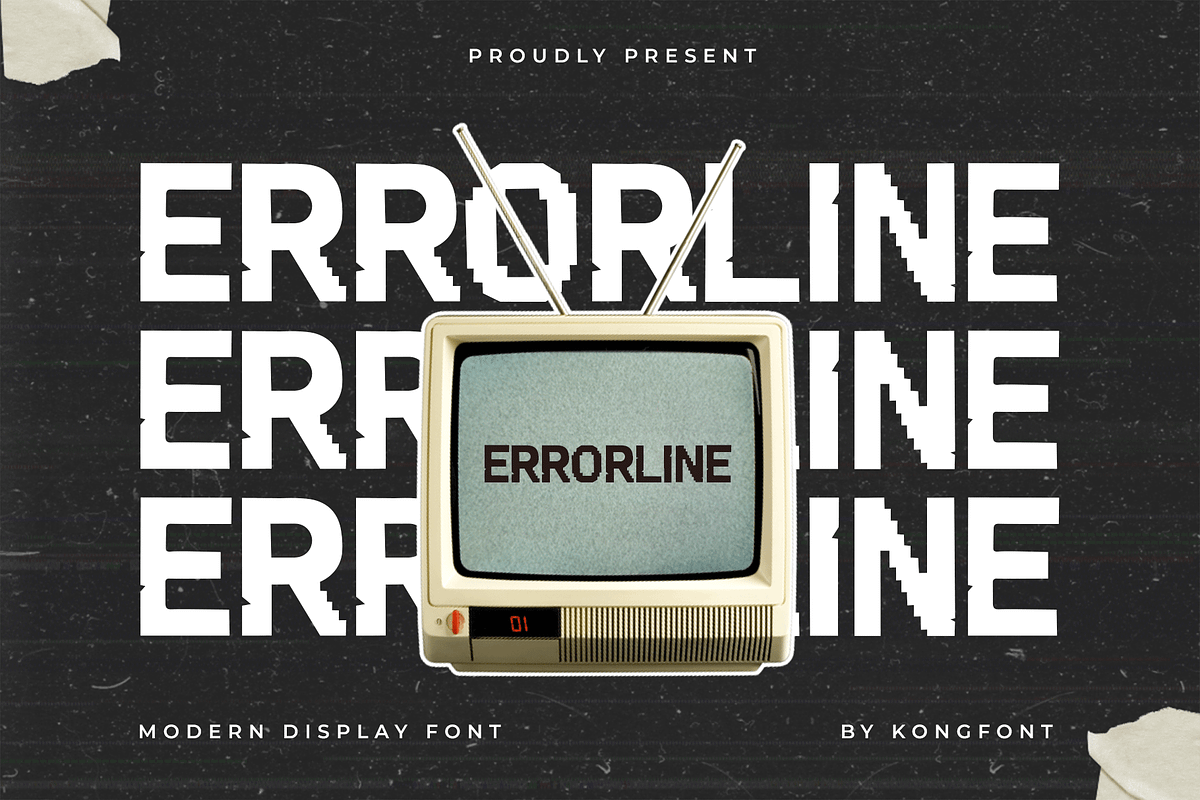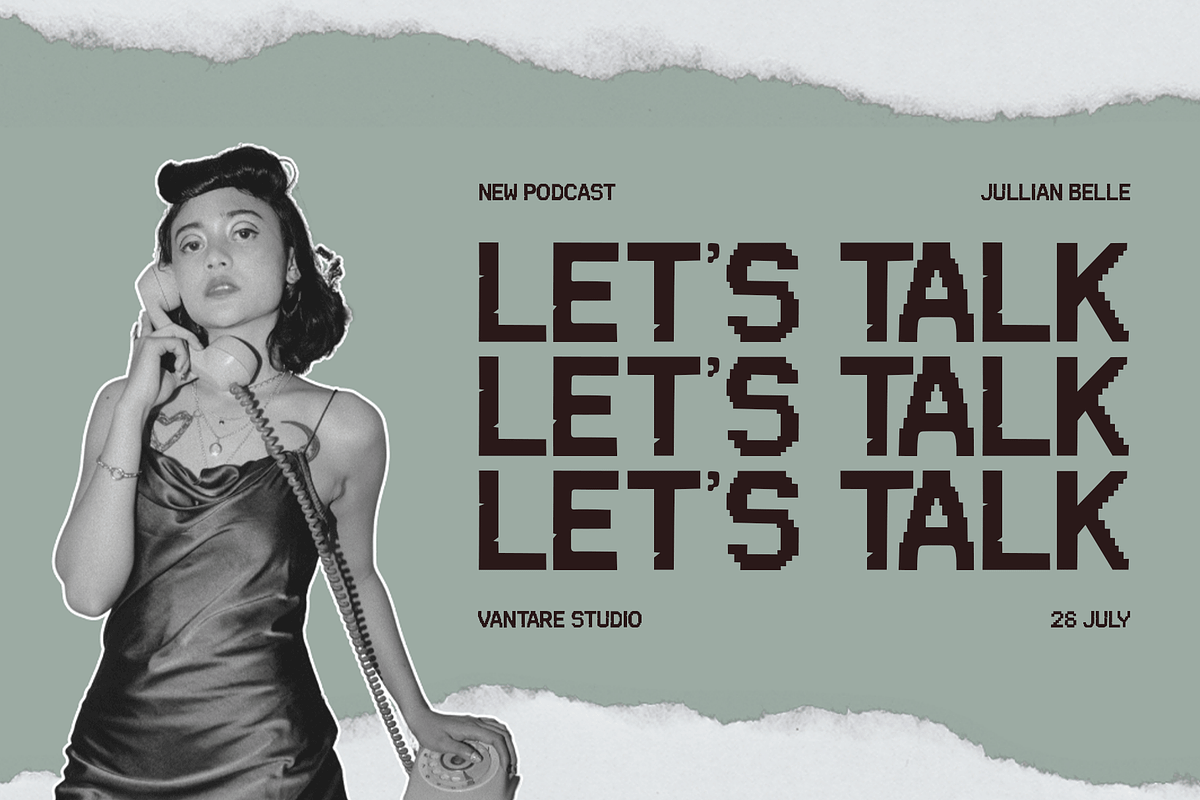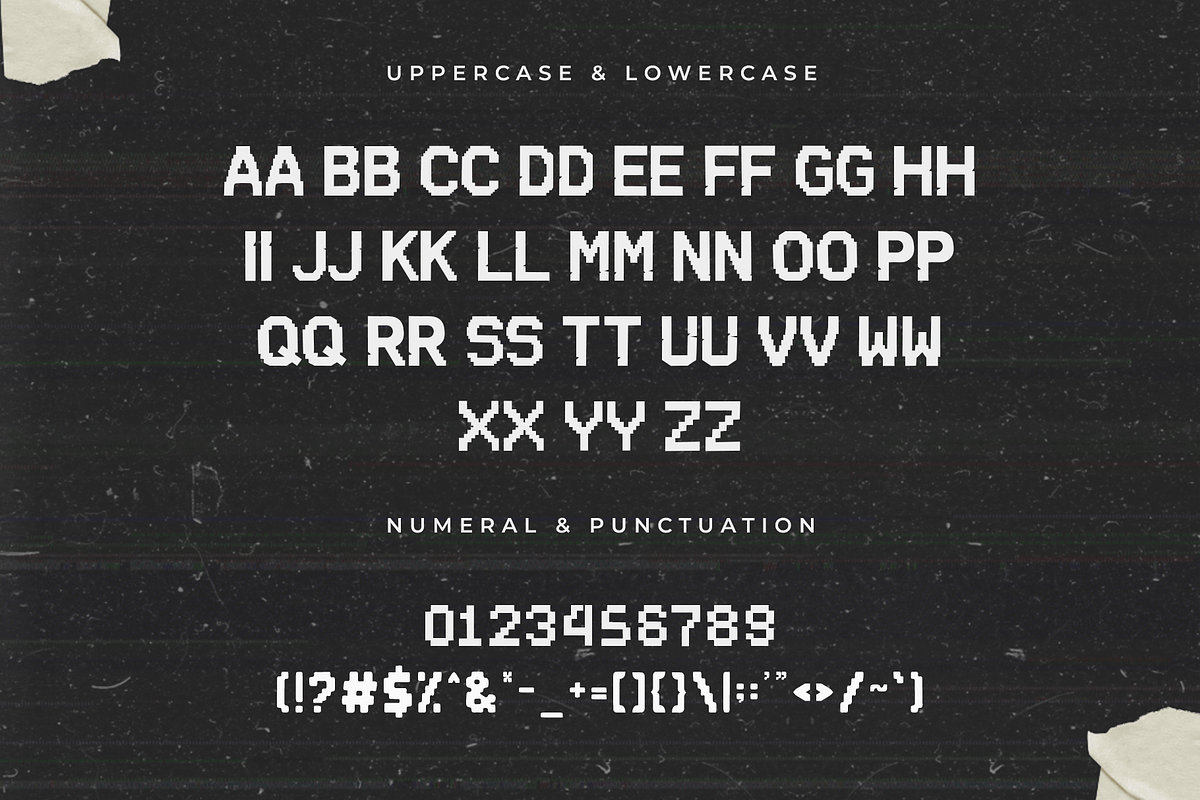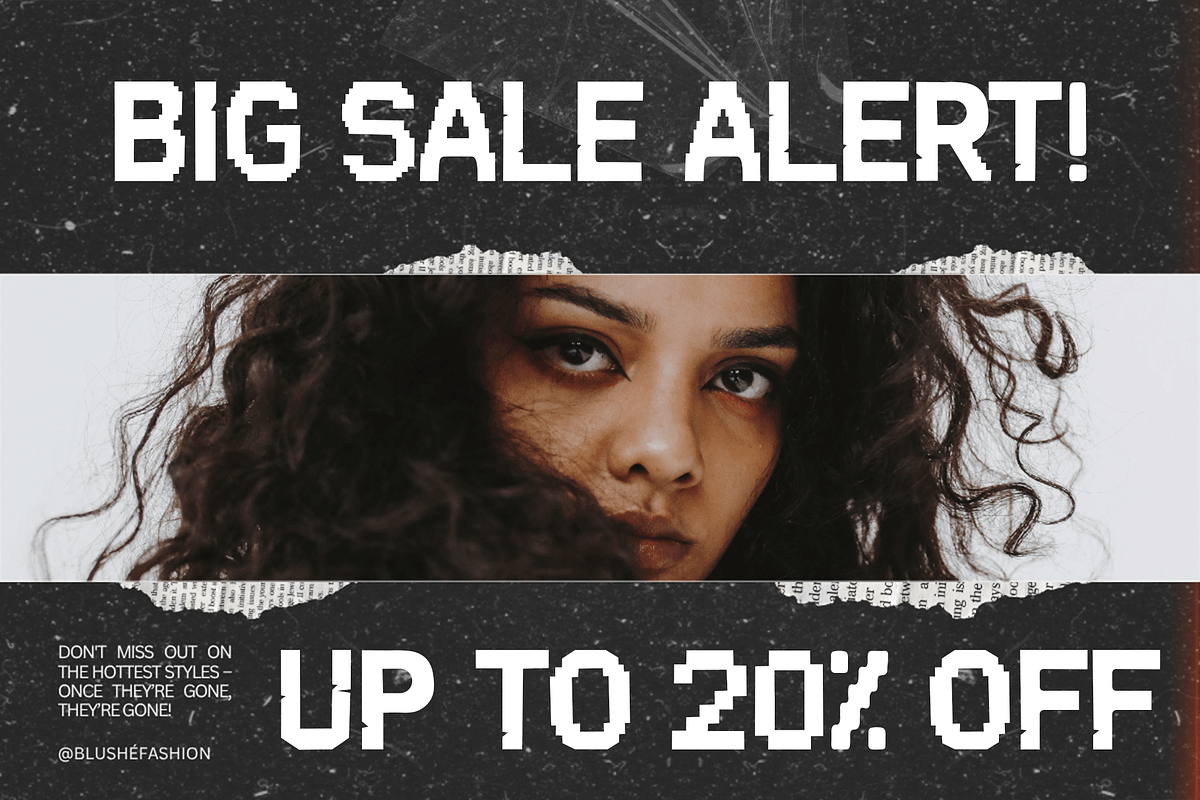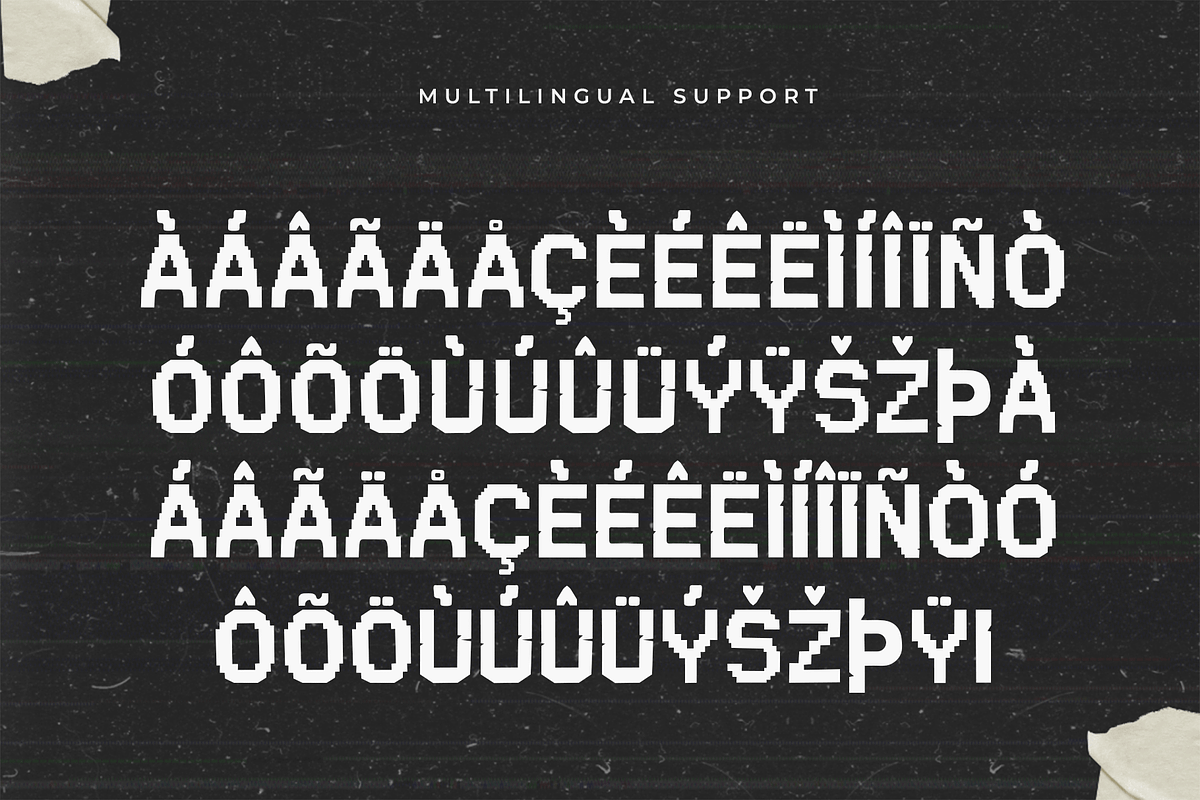
Errorline – Modern Display Font
Errorline is a modern display font that captures the essence of digital distortion, signal failure, and glitch aesthetics. With fractured forms, sharp geometry, and disjointed strokes, this typeface is built for creatives who embrace chaos, tech rebellion, and futuristic energy.
Perfect for music posters, experimental branding, cyberpunk themes, gaming graphics, motion design, and bold digital artwork, Errorline stands out with a broken beauty that feels deliberate and expressive. It brings tension, movement, and tech-inspired personality to your typography.
Equipped with uppercase and lowercase letters, numerals, punctuation, and multilingual support, Errorline is both visually arresting and creatively flexible.
Break expectations with Errorline the font that turns errors into art.